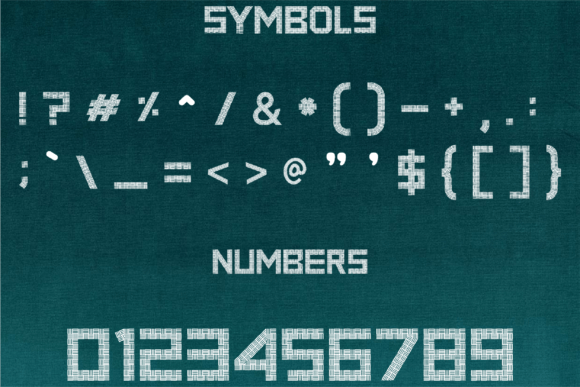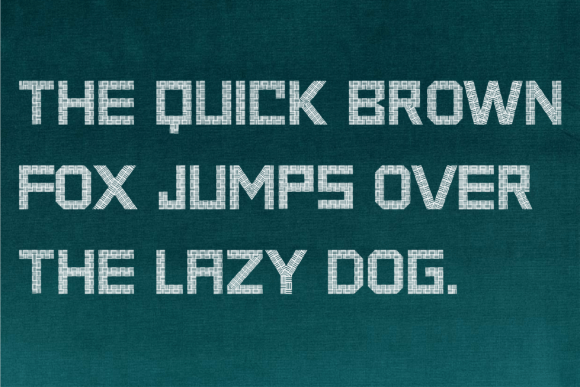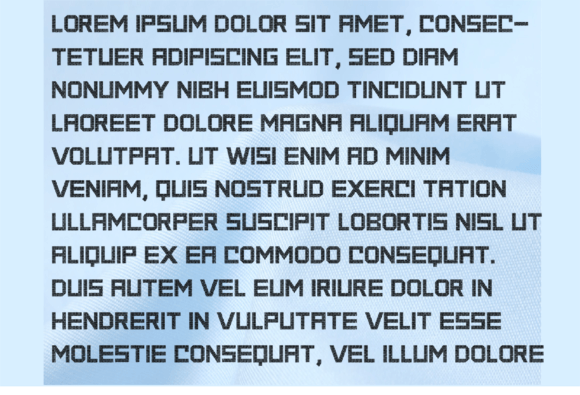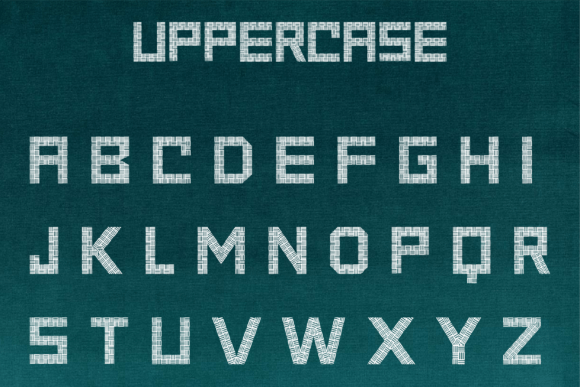
Unleash Your Creativity with Fabric Font: The Industrial-Strength Display Typeface
In the realm of typography, few fonts manage to strike a balance between style, versatility, and industrial strength. Fabric Font, however, stands out as a bold and dynamic display typeface that radiates style and adaptability. Whether you’re a designer looking to make a statement with striking banner designs, a developer aiming to enhance mobile applications, or a crafty individual seeking to innovate logo concepts, intricate pattern designs, or unique tile motifs, Fabric Font is the perfect tool for your creative arsenal.
Key Features of Fabric Font
- Bold and Industrial Strength: Fabric Font boasts a robust and commanding presence, making it ideal for projects that demand attention and exude an industrial vibe.
- Versatility at Its Core: With 93 glyphs and 92 distinct characters, this font offers a wide range of design possibilities, catering to a myriad of creative aspirations.
- Wide Range of Applications: From striking banner designs and compelling title headings to innovative logo concepts, intricate pattern designs, and unique tile motifs, Fabric Font’s versatility knows no bounds.
Applications of Fabric Font
1. Striking Banner Designs
Banners are often the first point of contact between a brand and its audience. With Fabric Font, you can create banners that not only grab attention but also communicate your brand’s personality effectively. Its bold and industrial strength characteristics ensure your message is conveyed with impact.
2. Compelling Title Headings
In digital and print media, title headings play a crucial role in capturing the reader’s attention. Fabric Font, with its unique style and industrial strength, can elevate your title headings, making them not just readable but also memorable.
3. Innovative Logo Concepts
A logo is the cornerstone of a brand’s identity. Fabric Font allows designers to push the boundaries of conventional logo design, creating innovative and impactful logos that resonate with the target audience.
4. Intricate Pattern Designs
Fabric Font’s extensive character set opens up new possibilities for creating intricate pattern designs. Whether for textiles, wallpaper, or digital backgrounds, the font’s versatility shines through in the complexity and beauty of the patterns it helps create.
5. Unique Tile Motifs
For crafters and designers interested in tile design, Fabric Font offers a unique opportunity to create tile motifs that stand out. From decorative tiles to large-scale ceramic designs, the font’s industrial strength and style ensure the final product is both durable and aesthetically pleasing.
Why Choose Fabric Font?
Choosing Fabric Font for your design projects comes with several advantages:
- Uniqueness: Stand out in a crowded design landscape with a font that is both bold and distinctive.
- Flexibility: With a wide range of glyphs and characters, Fabric Font adapts to various design needs and creative visions.
- Professionalism: Its industrial strength and stylish appeal lend a professional edge to any project.
Fabric Font is more than just a display typeface; it’s a creative tool that unlocks new possibilities for designers, developers, and crafters alike. Its bold industrial strength, coupled with its versatility and extensive character set, makes it an indispensable asset for anyone looking to make a statement with their designs. Whether you’re embarking on a new project or looking to refresh your brand’s visual identity, Fabric Font is poised to inspire and elevate your creative endeavors.
Embrace the power of Fabric Font and discover a world where style meets versatility and industrial strength. Your next design masterpiece is just a typography choice away.